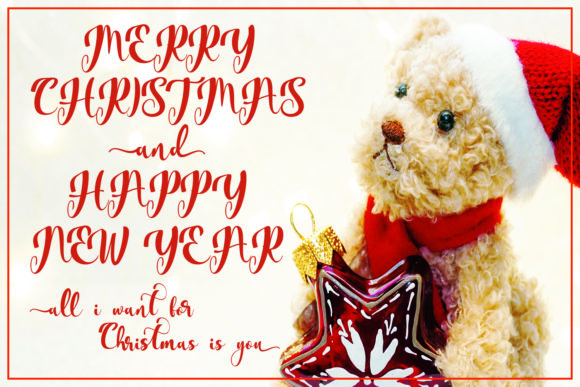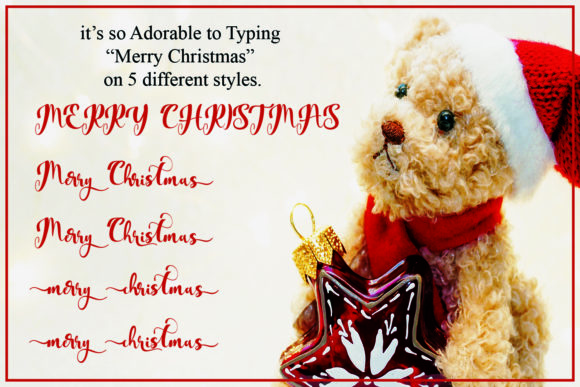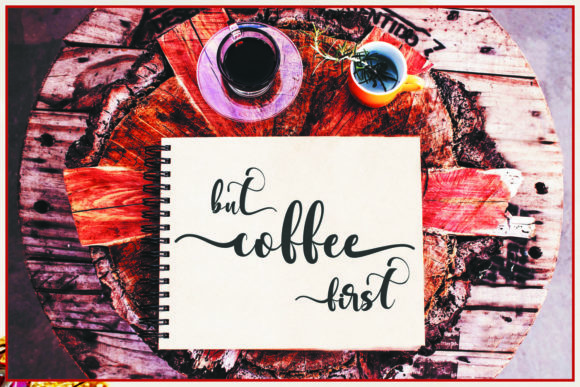
About Adorable Christmas Font
Adorable Christmas is a fabulous script font with elegant swashes. It is ideal for holiday-themed greeting cards and for any crafting project that requires a warm touch. This font is PUA encoded which means you can access the available glyphs and swashes with ease!